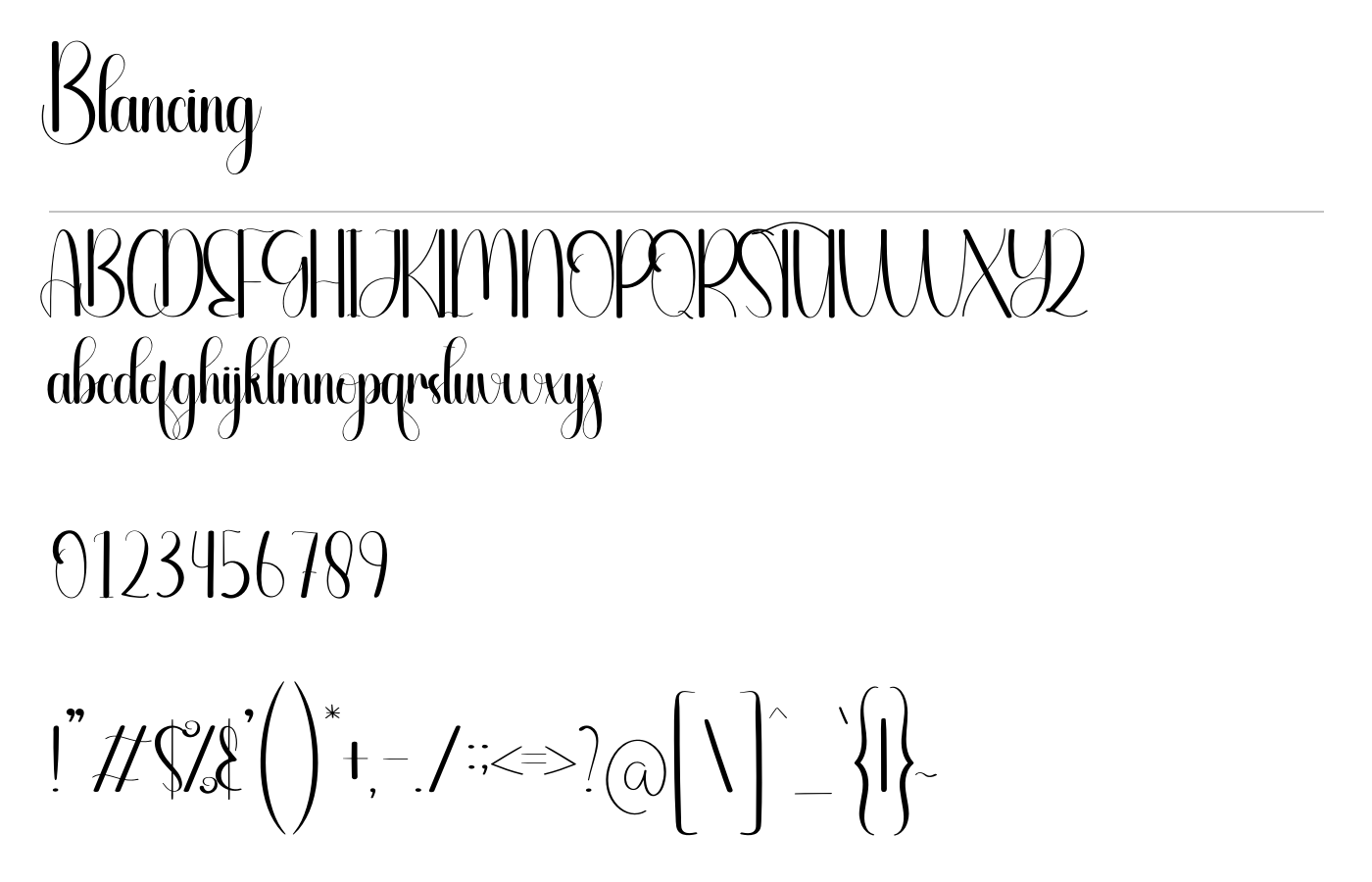
Blancing is a delicate and elegant script font with a tall, narrow structure and fine stroke contrast, featuring graceful swashes and looped flourishes that give it a sophisticated, decorative feel. Its slender letterforms and charming curves make it ideal for luxury branding, wedding invitations, and artistic headlines where a refined and stylish touch is desired. This font works best in display use, adding a touch of classic beauty and personality to any design.
Blancing Font